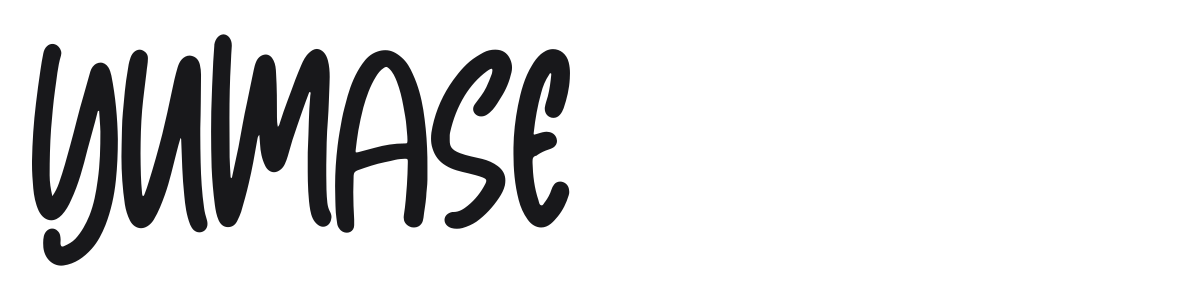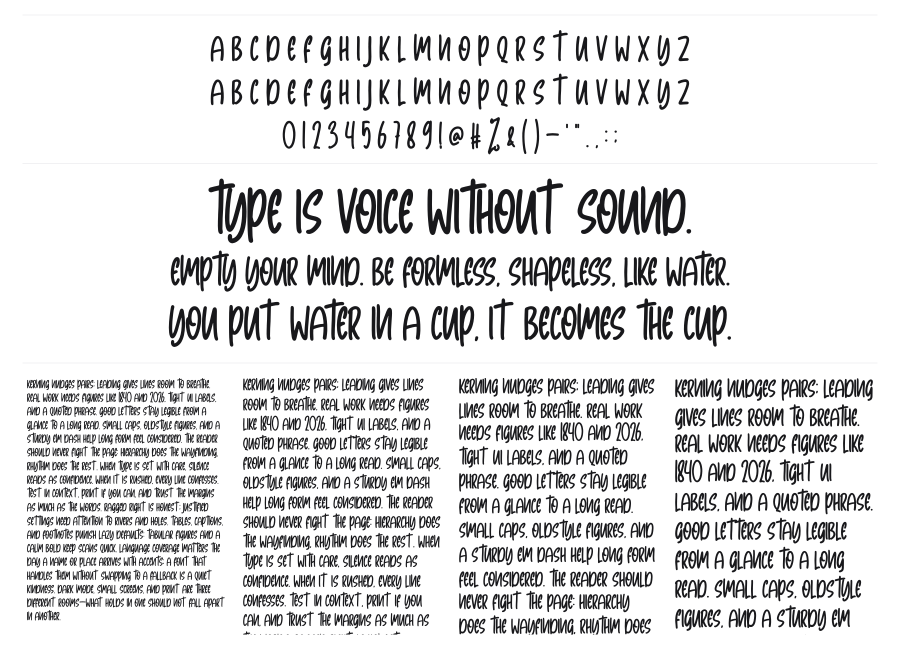
Yumase
Yumase is a bold upright casual script with thick, rounded strokes and a confident hand-lettered energy. The near-monoweight construction and slight character-to-character irregularities keep it feeling genuine rather than mechanical. It works well at large sizes for logos, posters, and packaging where personality is the point.